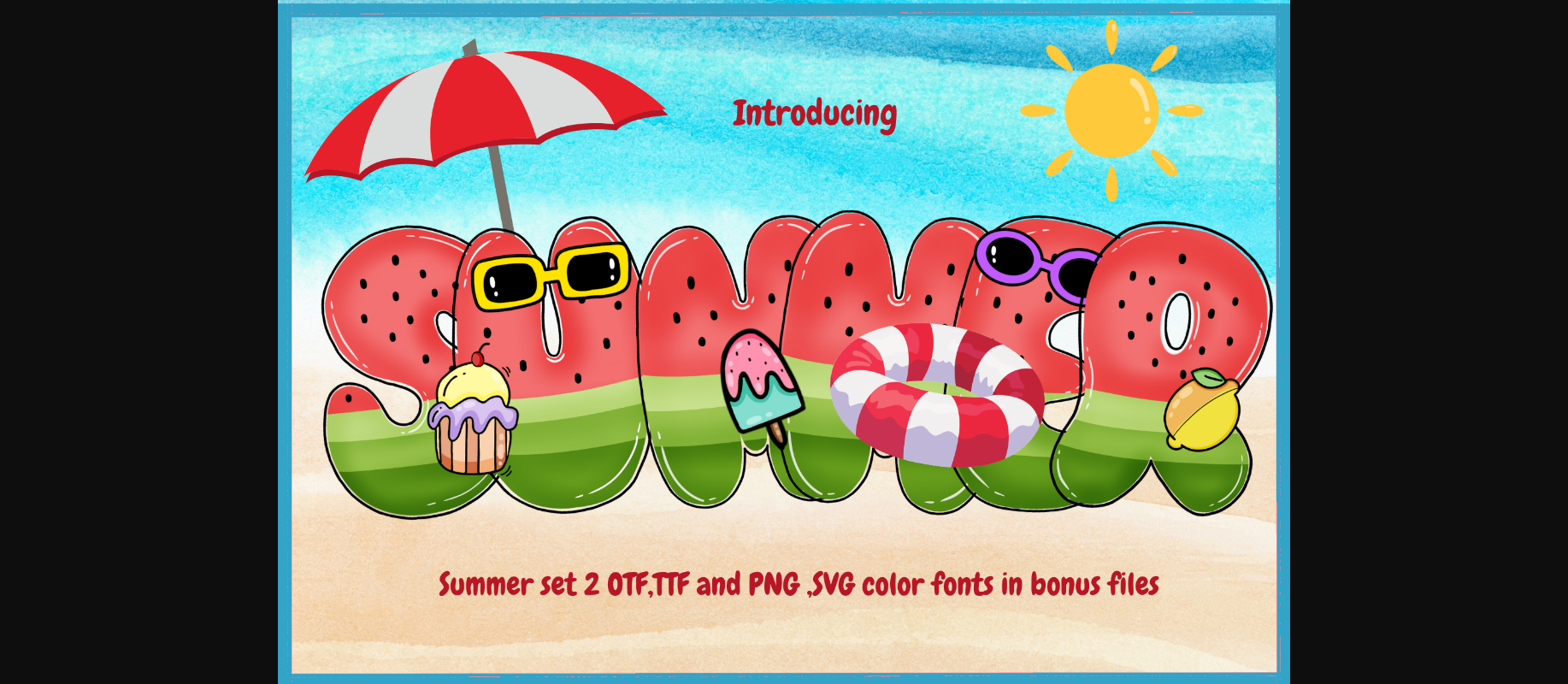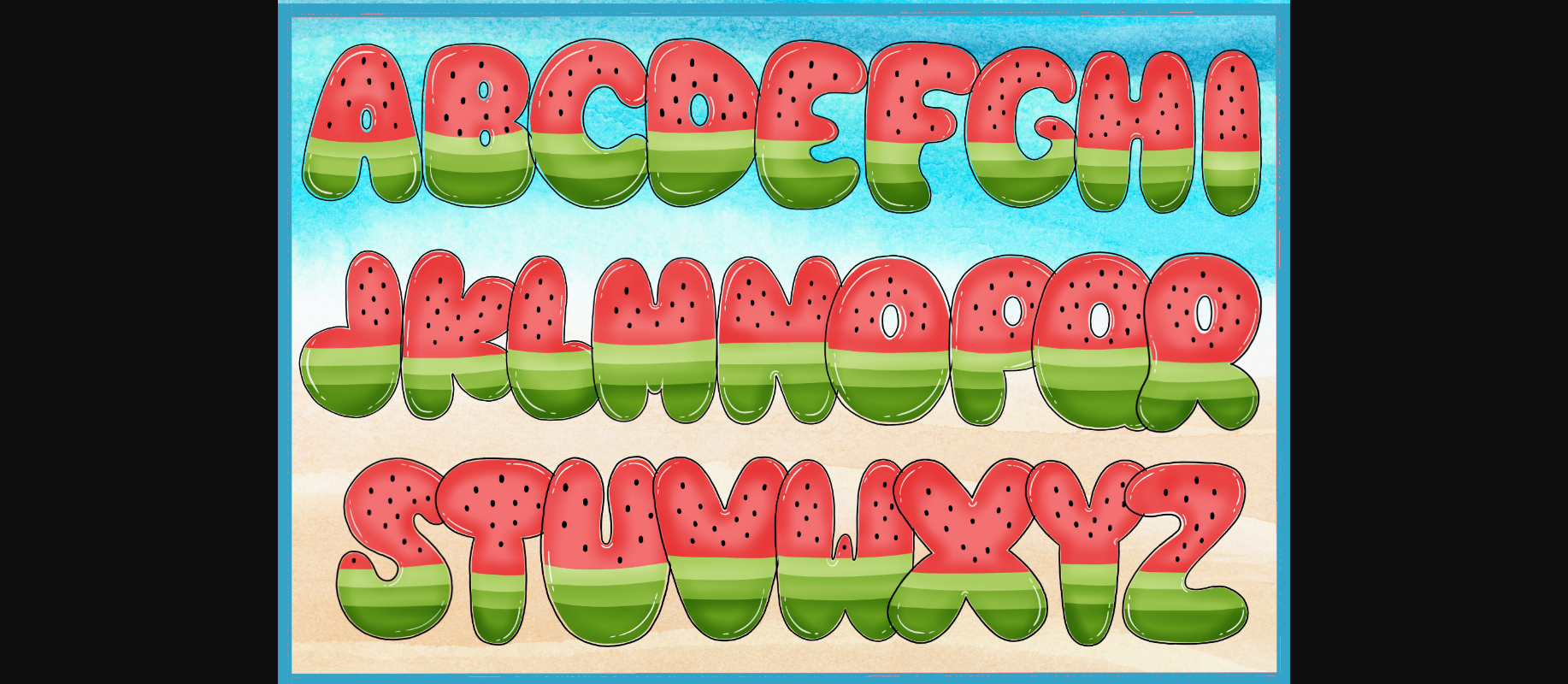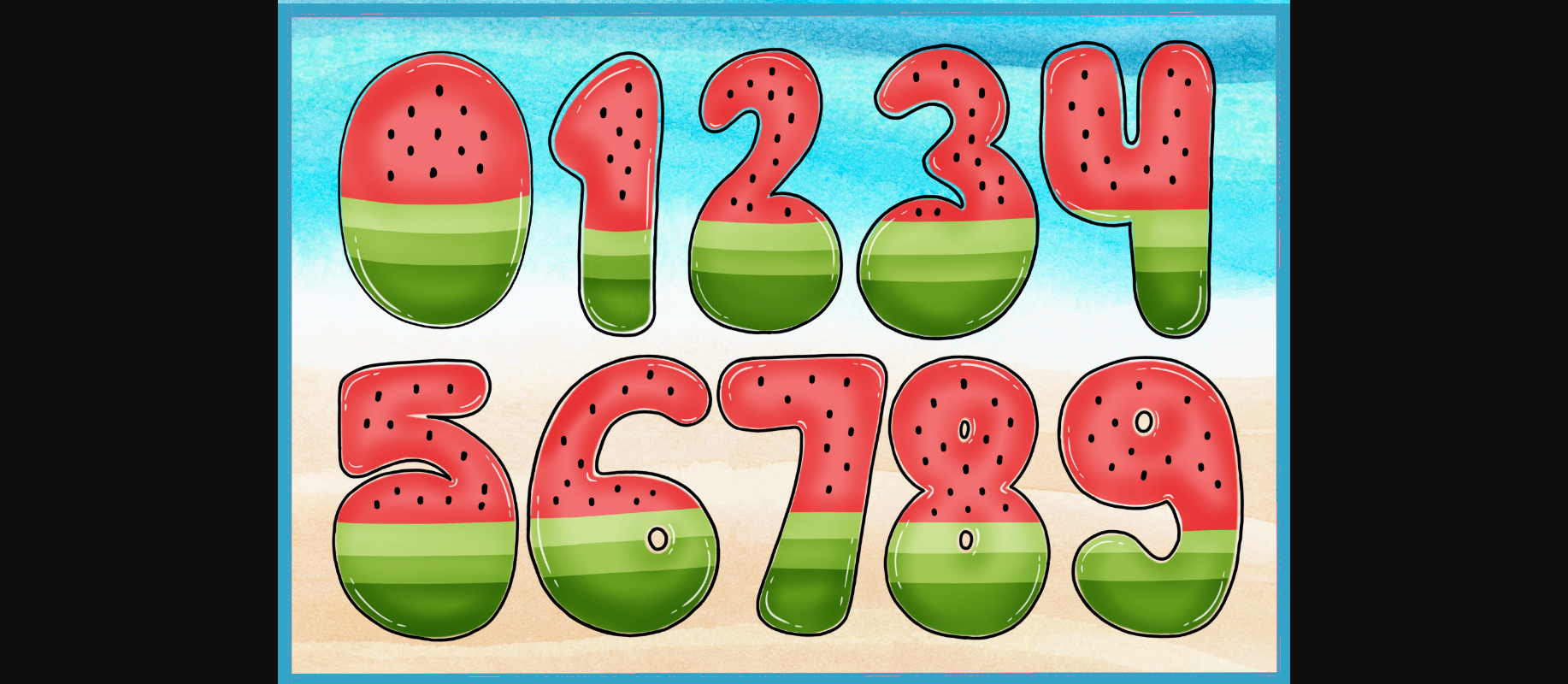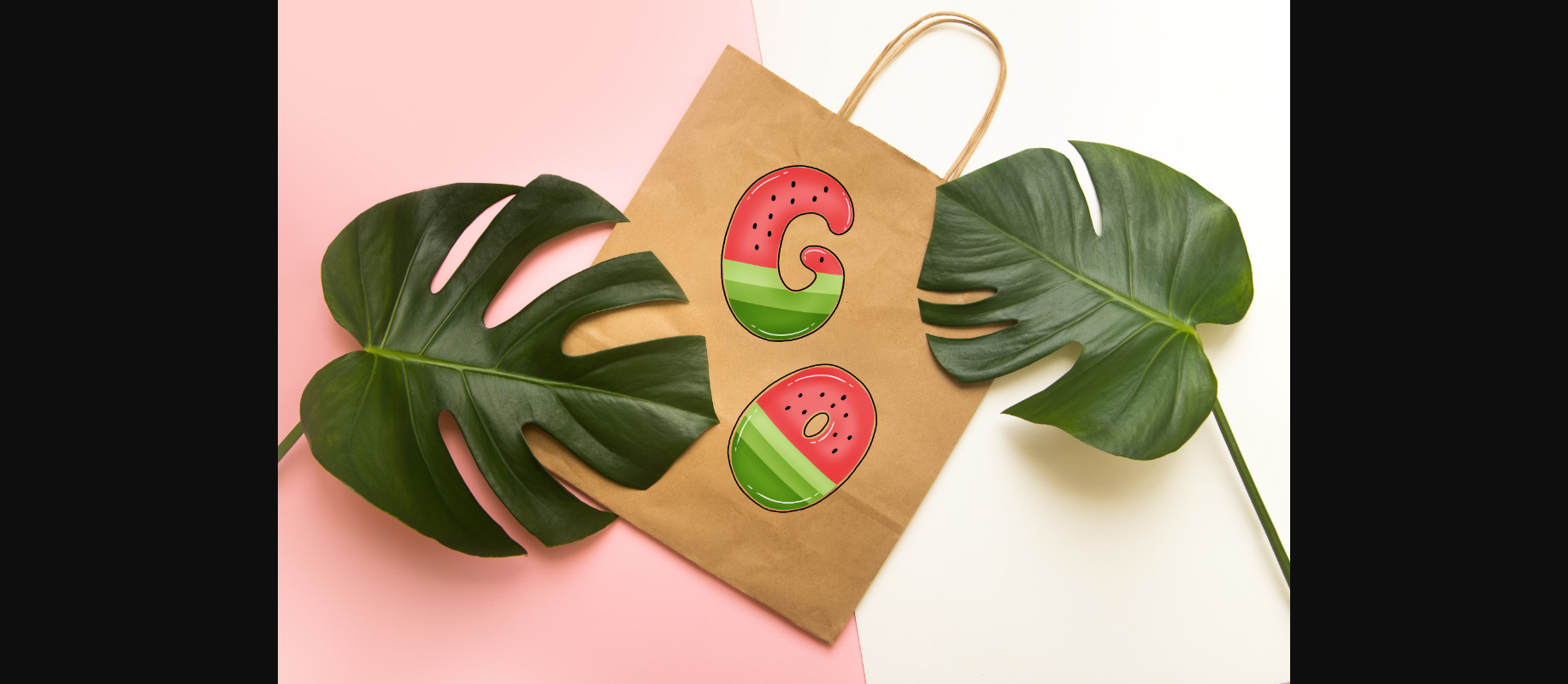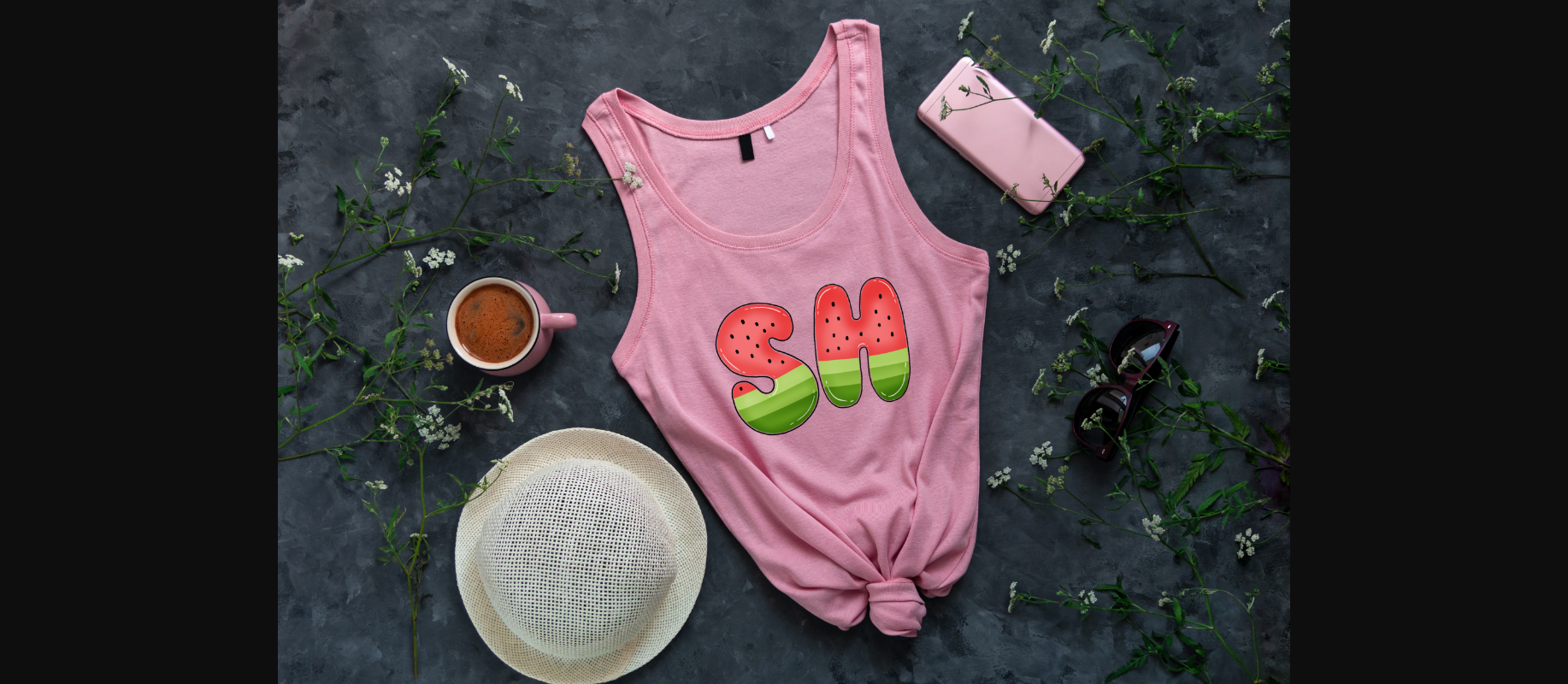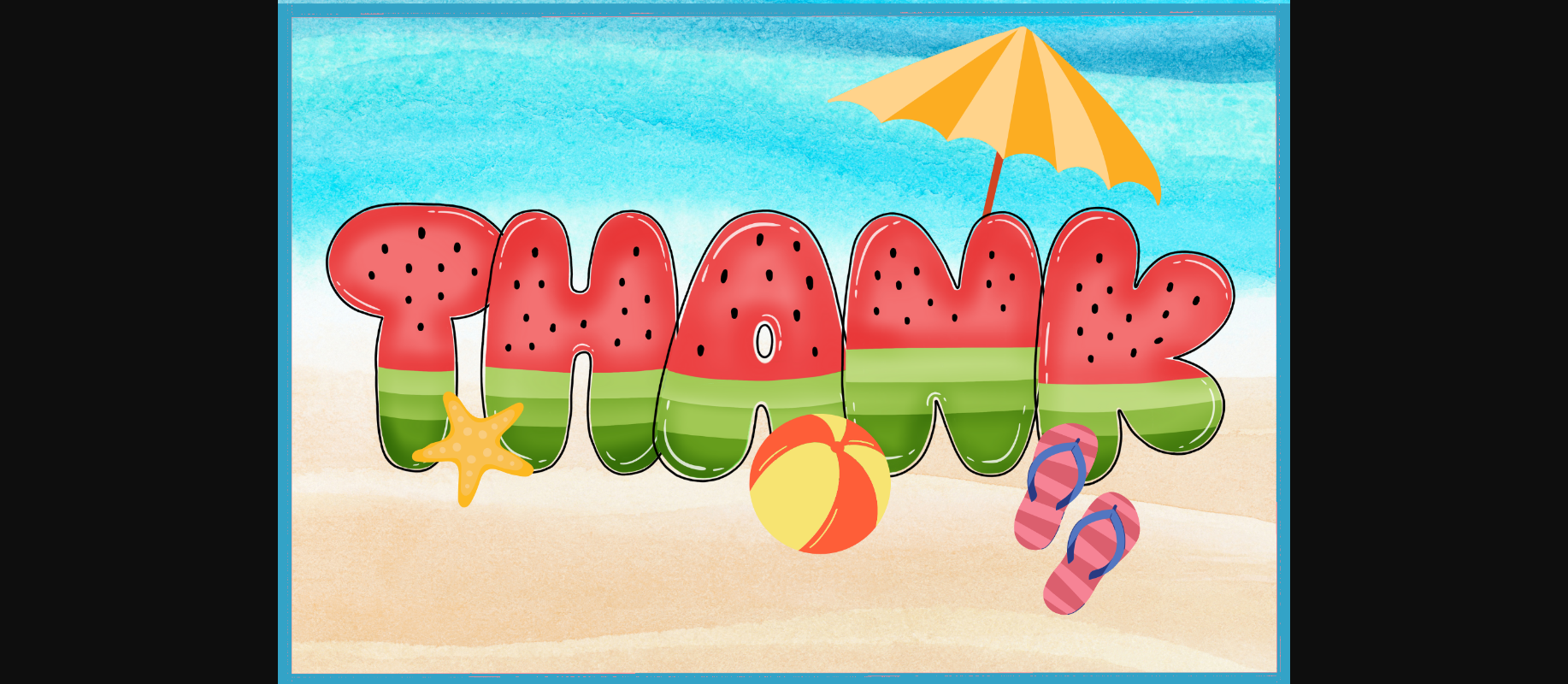
Decorative Fonts Summer Set Font 0 185 FacebookTwitterPinterestWhatsApp 1 of 9 ... Summer Set Font Poster 2... Summer Set Font Poster 3... Summer Set Font Poster 4... Summer Set Font Poster 5... Summer Set Font Poster 6... Summer Set Font Poster 7... Summer Set Font Poster 8... Summer Set Font Poster 9... About Summer Set Font Summer Set is a sweet, delicious, watermelony decorative font. Add it to your summer-themed projects and you will love the results! DOWNLOAD NOW